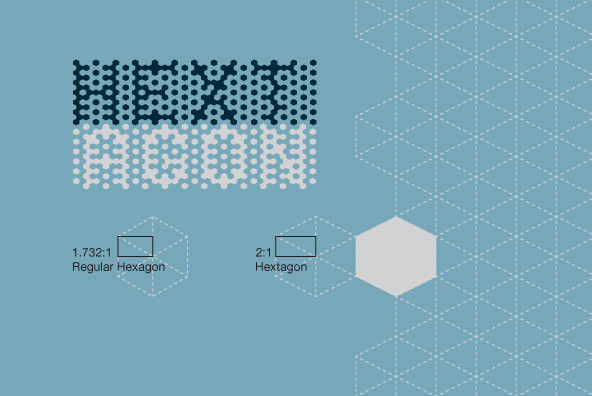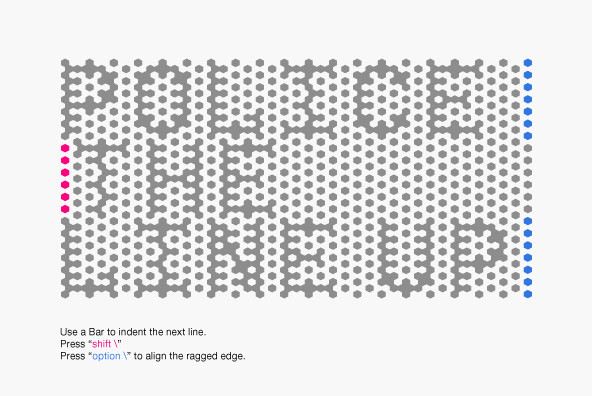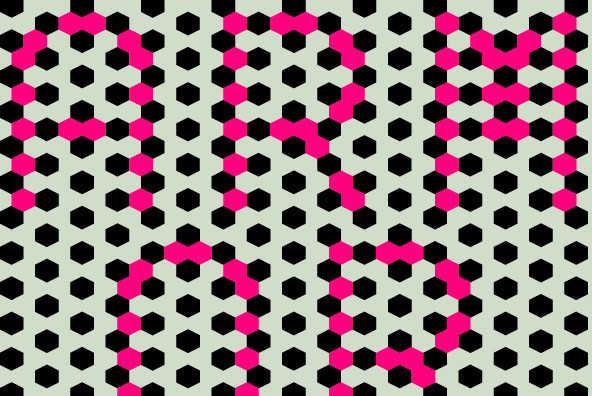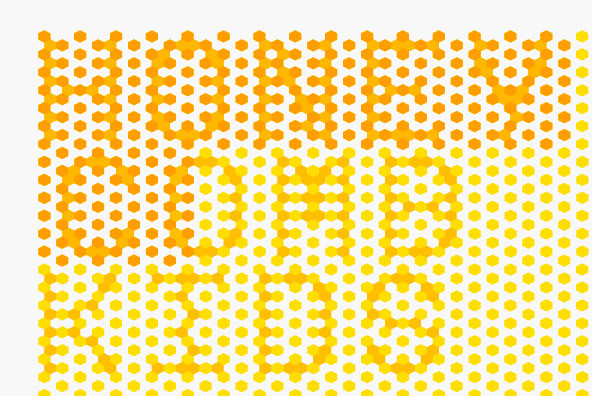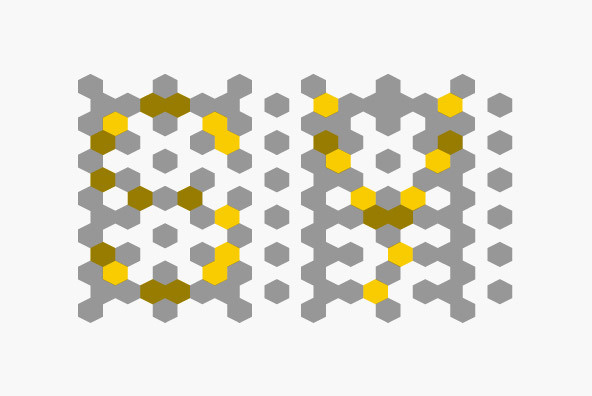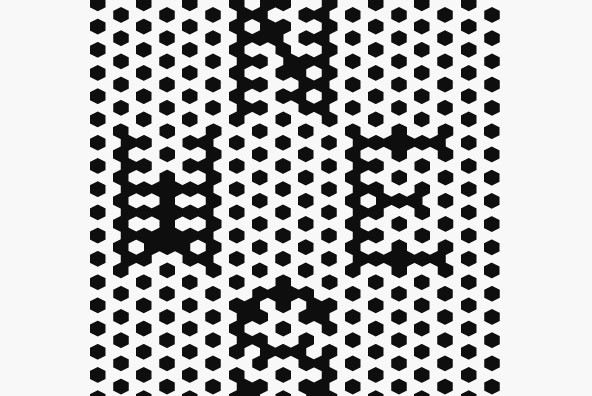
Hext is a geometric display face. When used in blocks of type it forms a repeating pattern of the interlocking hexagons. Use it for unique headlines or single characters. Create simple patterns or more complex creations by stacking letterforms and mixing colours. Experiment and have fun. Created in 2012 by Jeff King.